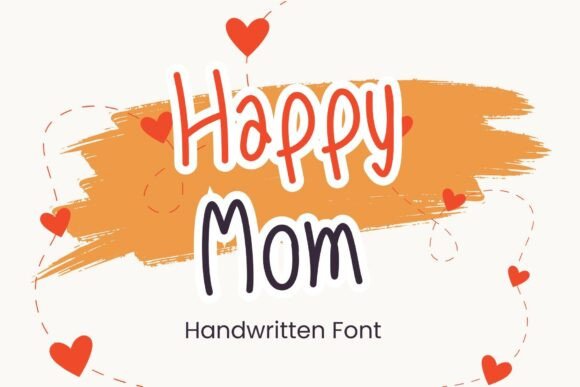
Introducing Happy Mom Font: The Perfect Handwritten Font for Personal and Commercial Use
Are you looking for a unique and playful font to add a personal touch to your documents, digital planners, and marketing materials? Look no further than the Happy Mom Font! This beautiful handwritten font is designed to bring a smile to your readers’ faces and make your content stand out from the crowd.
What is Happy Mom Font?
Happy Mom is a carefully crafted handwritten font that exudes warmth, friendliness, and approachability. Its flowing lines and whimsical curves make it perfect for a wide range of applications, from digital note-taking and planners to quotations, banners, logos, and product packaging.
Whether you’re a blogger, entrepreneur, or simply a crafty person, Happy Mom Font is an excellent choice for adding a personal touch to your work. Its versatility and legibility make it suitable for both digital and print materials, ensuring that your message looks great across all platforms.
Key Features of Happy Mom Font
- Handwritten style: Happy Mom Font boasts a genuine handwritten look that adds a touch of personality to your content.
- Legible and readable: The font is designed to be easy to read, making it perfect for body text, headings, and titles.
- Versatile: Happy Mom Font can be used for a wide range of applications, including digital note-taking, digital planners, quotations, banners, logos, product packaging, titles, headers, menu lists, and more.
Use Cases for Happy Mom Font
Happy Mom Font is an incredibly versatile font that can be used in various contexts. Here are some ideas to get you started:
- Digital planners and journals: Add a personal touch to your digital planners and journals with Happy Mom Font.
- Blogging and content creation: Use Happy Mom Font to create eye-catching titles, headings, and body text for your blog posts.
- Social media graphics: Create engaging social media graphics, quotes, and banners with Happy Mom Font.
- Product packaging and labeling: Use Happy Mom Font to add a personal touch to your product packaging and labels.
- Logos and branding: Happy Mom Font can be used to create unique and memorable logos and branding materials.
Benefits of Using Happy Mom Font
Using Happy Mom Font offers several benefits, including:
- Unique and recognizable brand identity: Happy Mom Font helps you create a distinctive brand voice and visual identity.
- Increased engagement: The friendly and approachable nature of Happy Mom Font can help increase engagement and connect with your audience.
Tips and Tricks for Using Happy Mom Font
Here are some tips and tricks to help you get the most out of Happy Mom Font:
- Experiment with font sizes and colors: Try out different font sizes and colors to create visual interest and hierarchy.
- Combine with other fonts: Pair Happy Mom Font with other fonts to create a unique and harmonious visual identity.
- Use for headings and titles: Use Happy Mom Font for headings and titles to add a touch of personality to your content.
- Keep it legible: Ensure that your text remains legible by using Happy Mom Font in a clear and readable format.
In conclusion, Happy Mom Font is a beautiful and versatile handwritten font that’s perfect for adding a personal touch to your documents, digital planners, and marketing materials. Its friendly and approachable nature makes it an excellent choice for creating engaging content that resonates with your audience.
Whether you’re a blogger, entrepreneur, or simply a crafty person, Happy Mom Font is a great addition to your font library. So why not give it a try and see how it can elevate your content and brand identity?